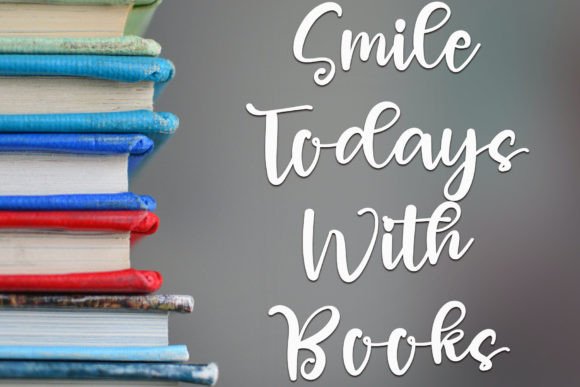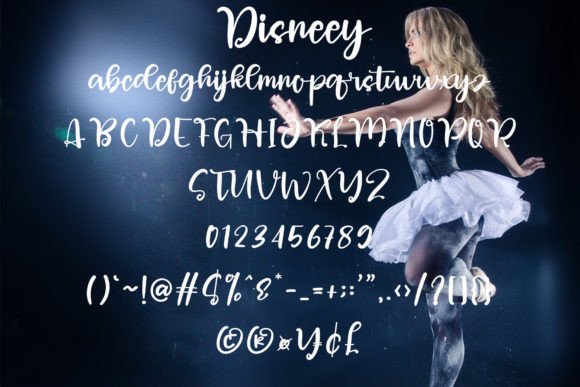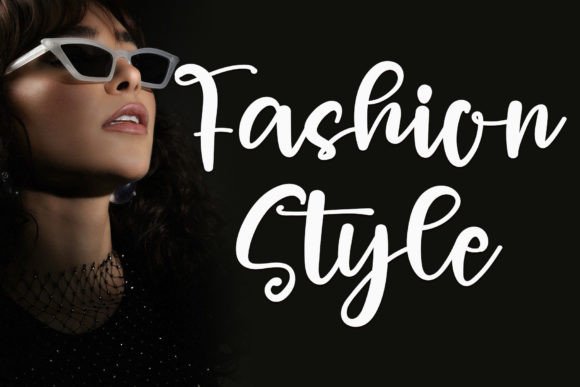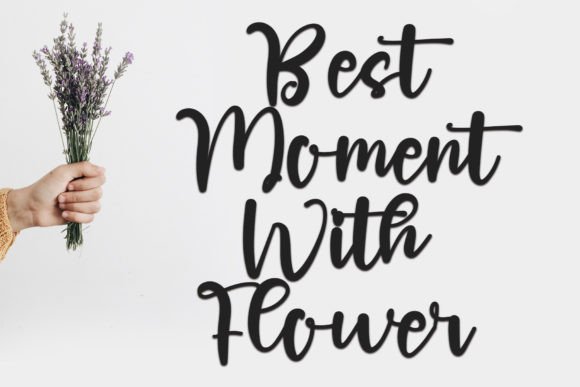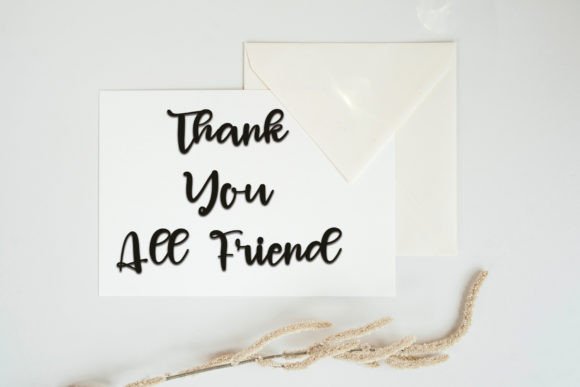
Discover the Magic of Disneey Font: A Romantic Handwritten Script
Are you looking for a font that can add a touch of magic to your designs? Look no further than Disneey, an enchanting handwritten font that is sure to captivate your audience. With its versatile script style, Disneey has a wide range of applications, from greeting cards to headlines, and is guaranteed to bring a romantic feel to your next project.
The Charm of Disneey Font
Disneey font is a beautiful, handwritten script that exudes elegance and sophistication. Its flowing curves and delicate lines make it perfect for creating romantic and whimsical designs. Whether you’re working on a wedding invitation, a Valentine’s Day card, or a branding project, Disneey is sure to add a touch of magic to your work.
One of the best things about Disneey font is its versatility. It can be used for a wide range of applications, from:
- Greeting cards: Create beautiful and personalized greeting cards for special occasions like birthdays, weddings, and anniversaries.
- Headlines: Add a touch of elegance to your headlines and make them stand out with Disneey font.
- Branding: Use Disneey font to create a unique and memorable brand identity that reflects your company’s personality.
- Signage: Create eye-catching signs and posters with Disneey font that are sure to grab attention.
Why Choose Disneey Font?
So, why choose Disneey font for your next project? Here are just a few reasons:
- Unique and distinctive: Disneey font is a one-of-a-kind script font that will set your designs apart from the rest.
- Elegant and sophisticated: Disneey font exudes elegance and sophistication, making it perfect for high-end designs.
- Easy to read: Despite its ornate style, Disneey font is easy to read, making it perfect for body text and headlines.
- Highly versatile: Disneey font can be used for a wide range of applications, from digital designs to print materials.
Tips for Using Disneey Font
Here are a few tips for using Disneey font in your designs:
- Pair it with a sans-serif font: Pair Disneey font with a sans-serif font like Arial or Helvetica to create a beautiful contrast.
- Use it for headlines: Disneey font is perfect for headlines and titles, where its elegant style can really shine.
- Experiment with colors: Disneey font looks great in a range of colors, from soft pastels to rich jewel tones.
- Don’t be afraid to get creative: Disneey font is a versatile font that can be used in a wide range of creative ways, so don’t be afraid to experiment and try new things.
In conclusion, Disneey font is a beautiful and versatile handwritten script font that is sure to add a touch of magic to your designs. With its elegant style, easy readability, and high versatility, Disneey font is perfect for a wide range of applications, from greeting cards to headlines. Whether you’re a designer, a crafter, or just someone who loves to create, Disneey font is a great choice for your next project.
Get Ready to Fall in Love with Disneey Font